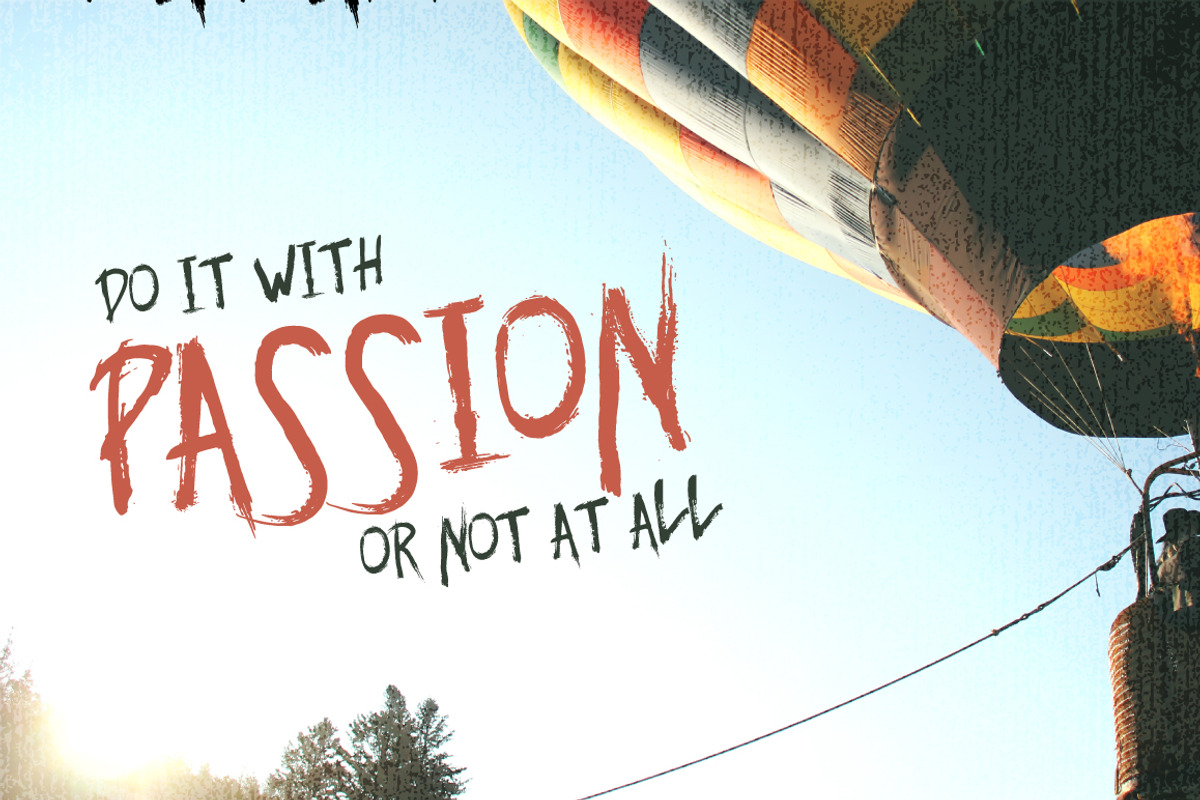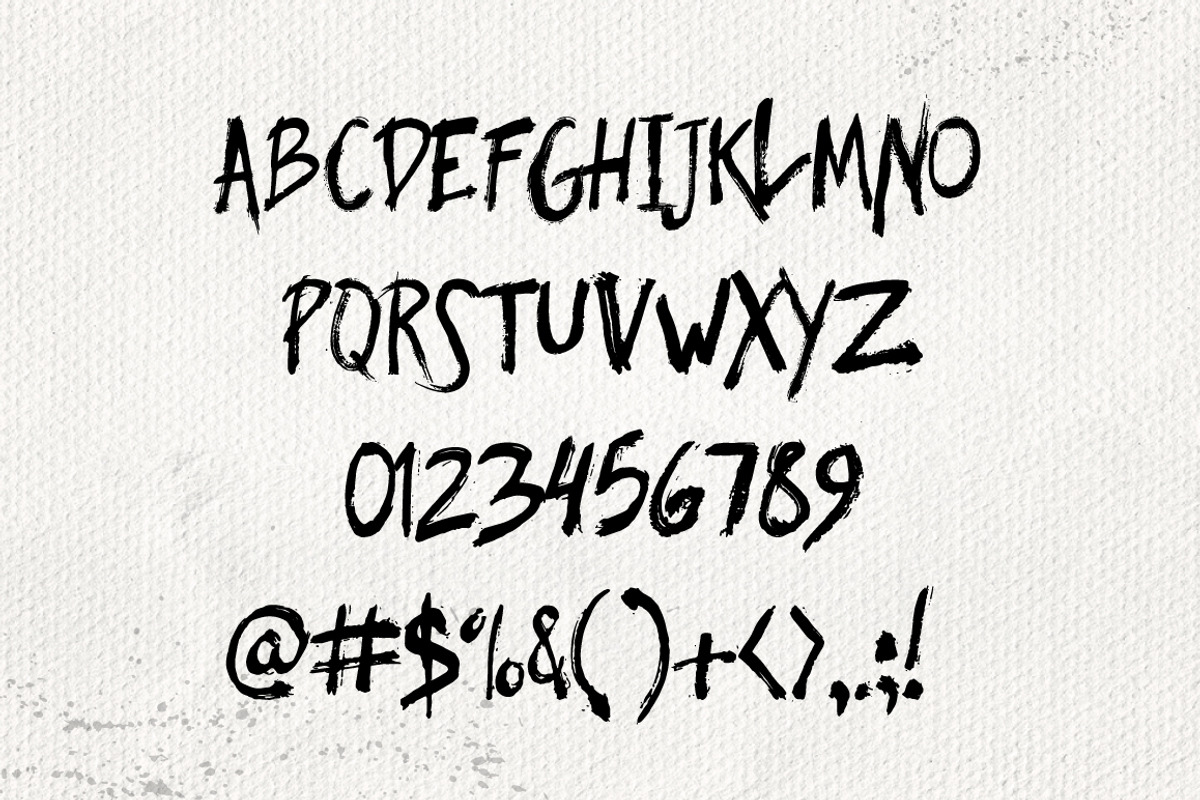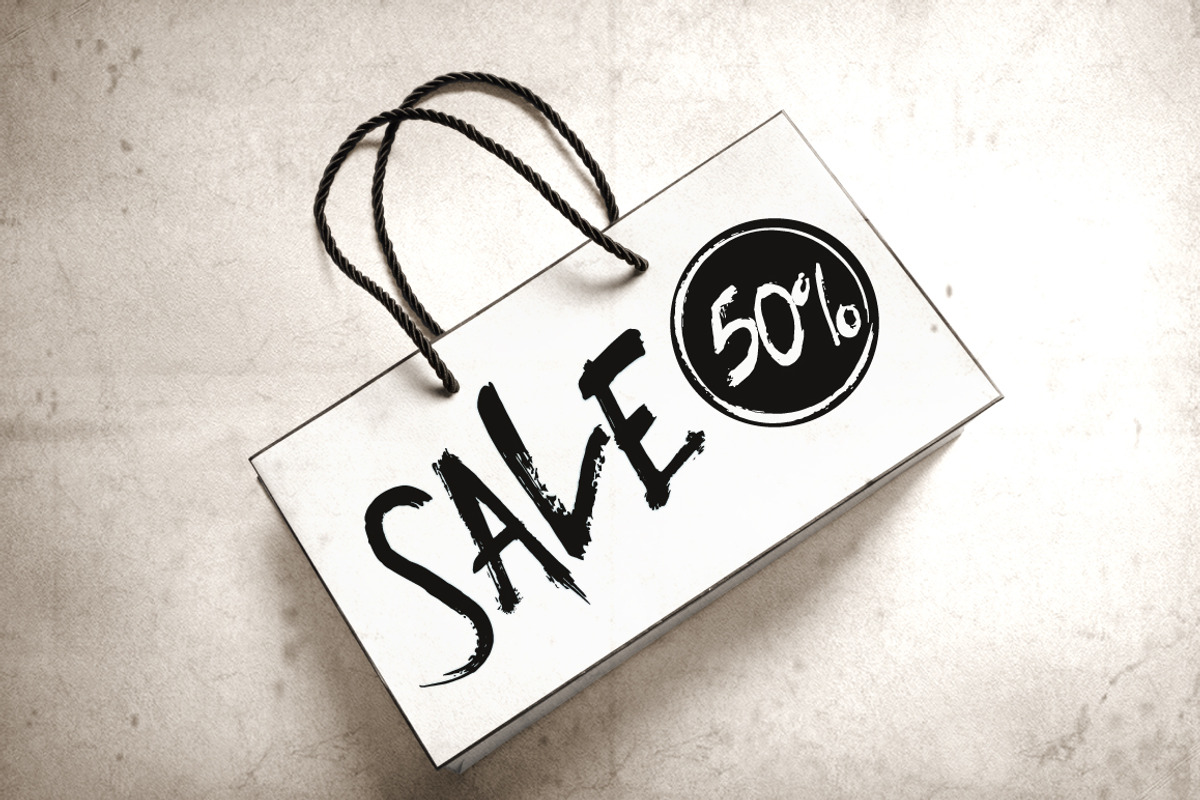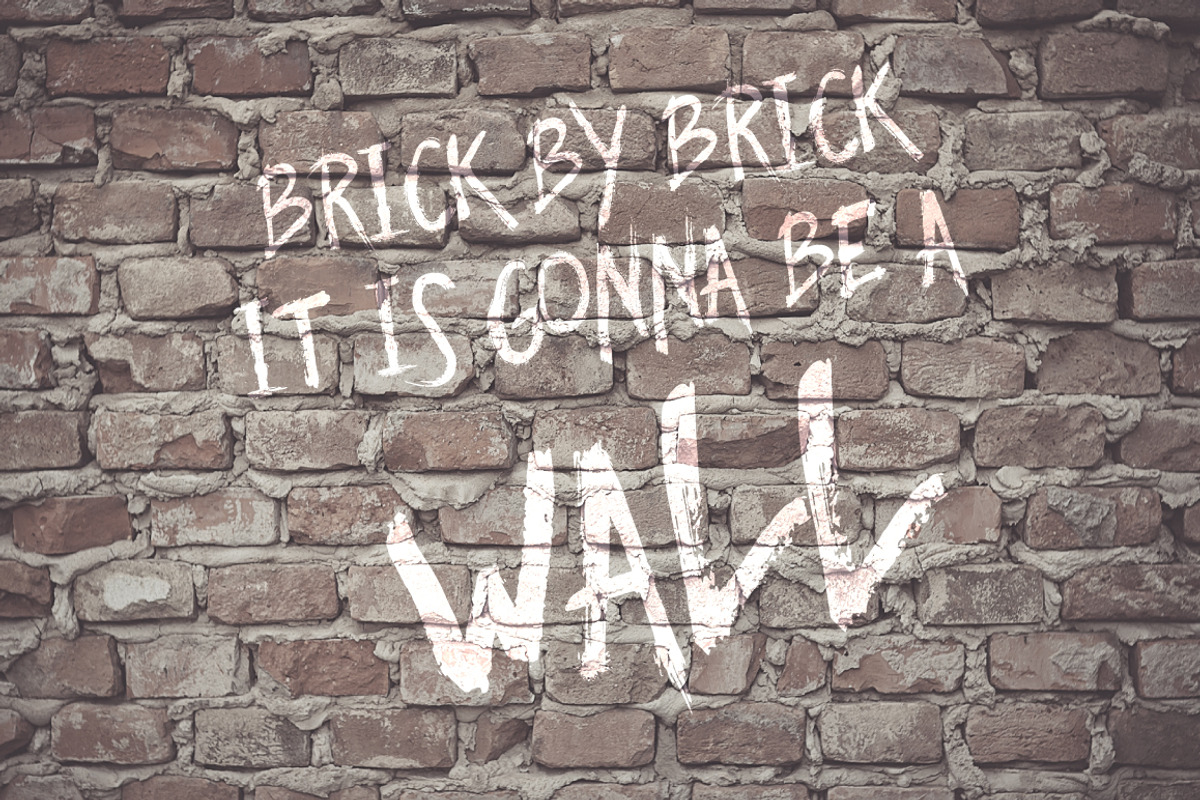
Akula- Dry Brush Font
Akula- Dry Brush Font by Anna Ivanir is a font selected for branding, posters, packaging, typography.
- Includes uppercase, number, and punctuation.
Akula- Dry Brush Font by Anna Ivanir fits naturally into Branding, posters, packaging, typography.